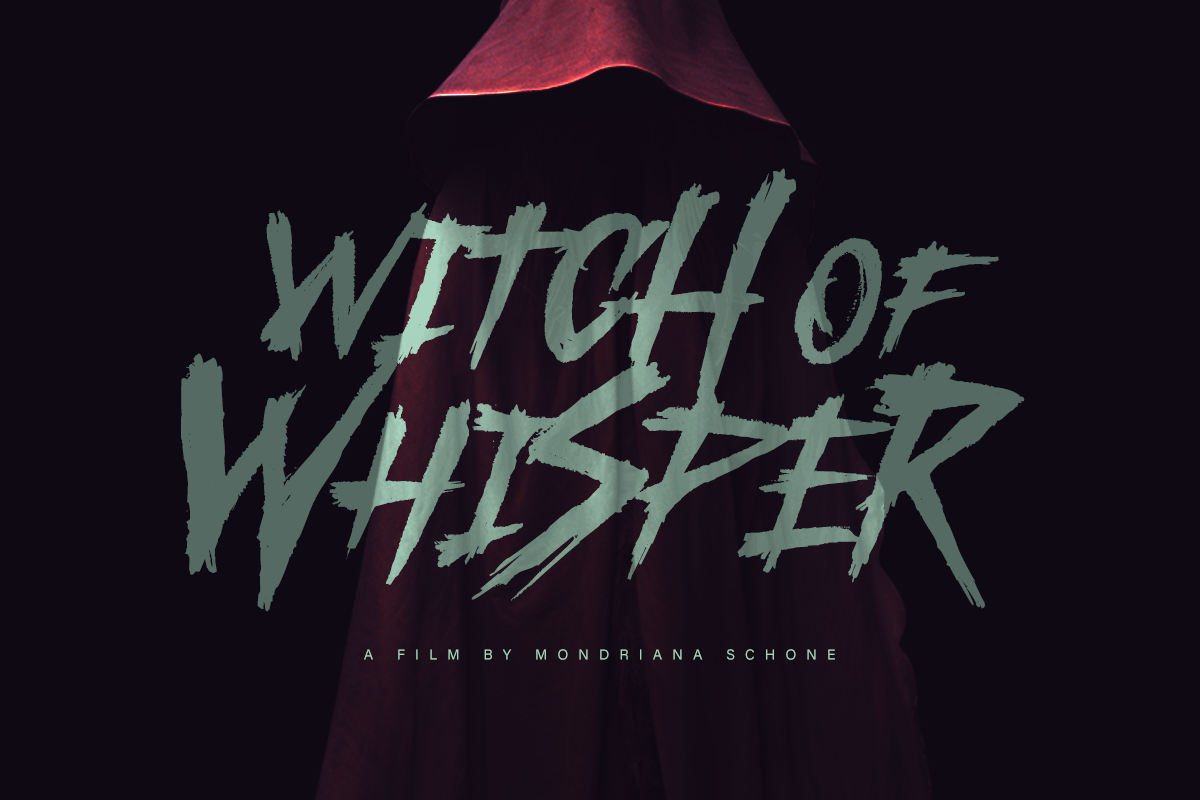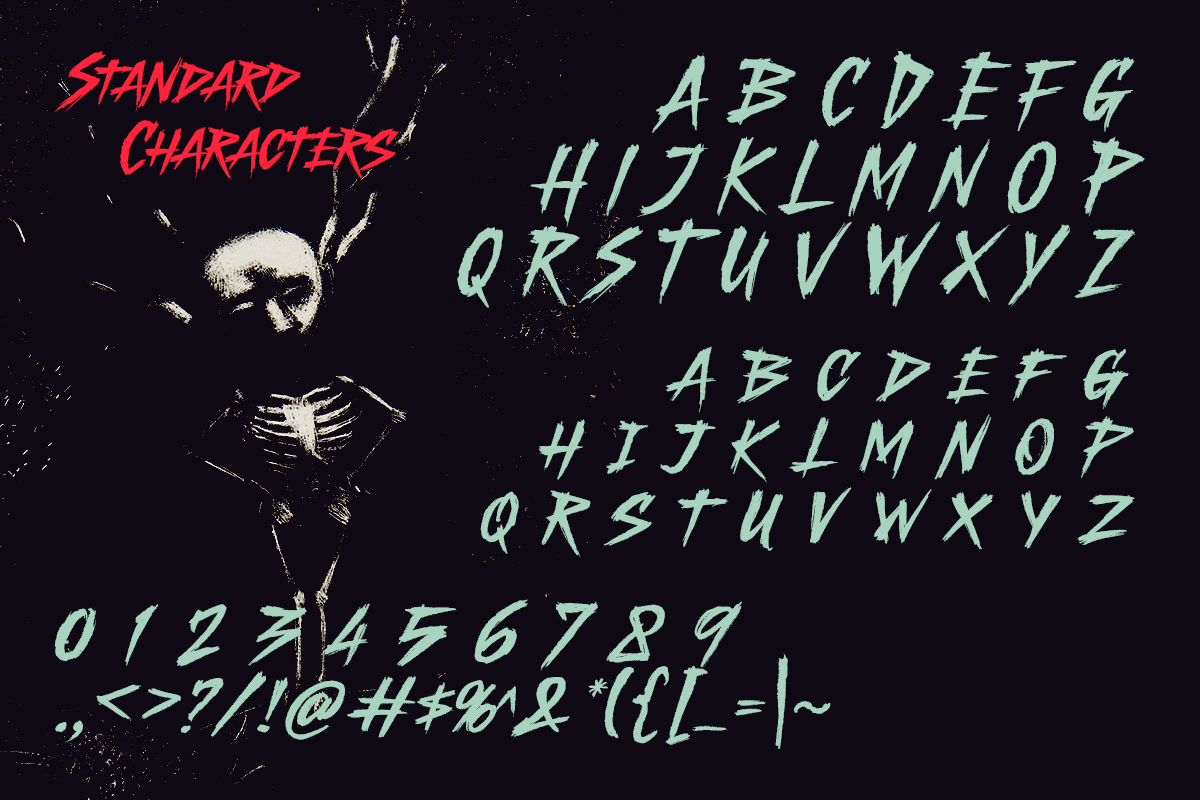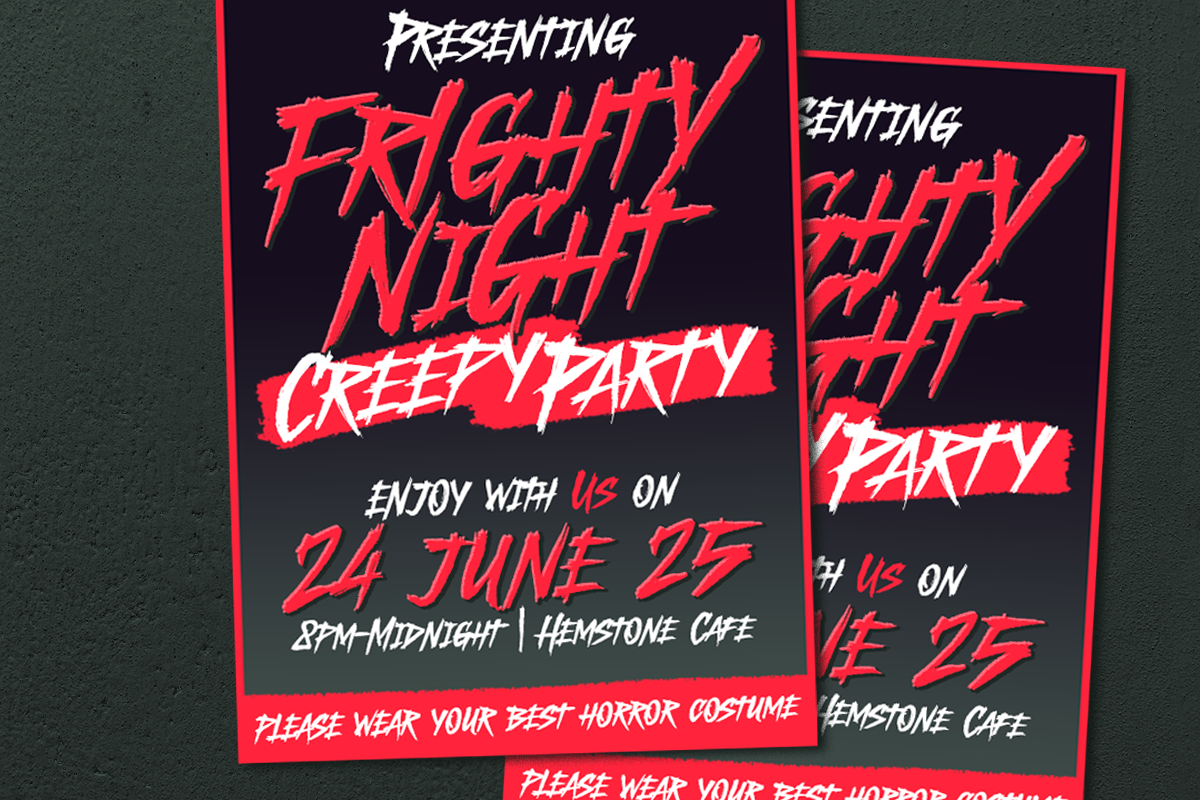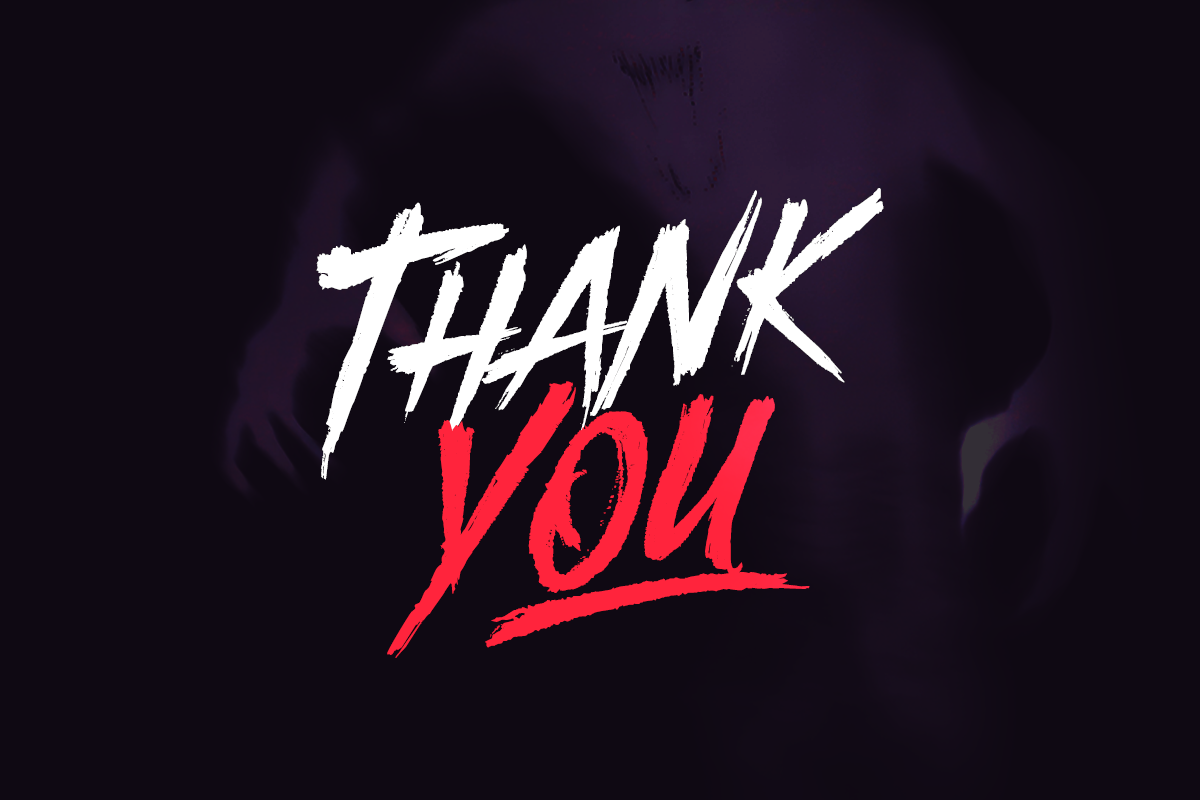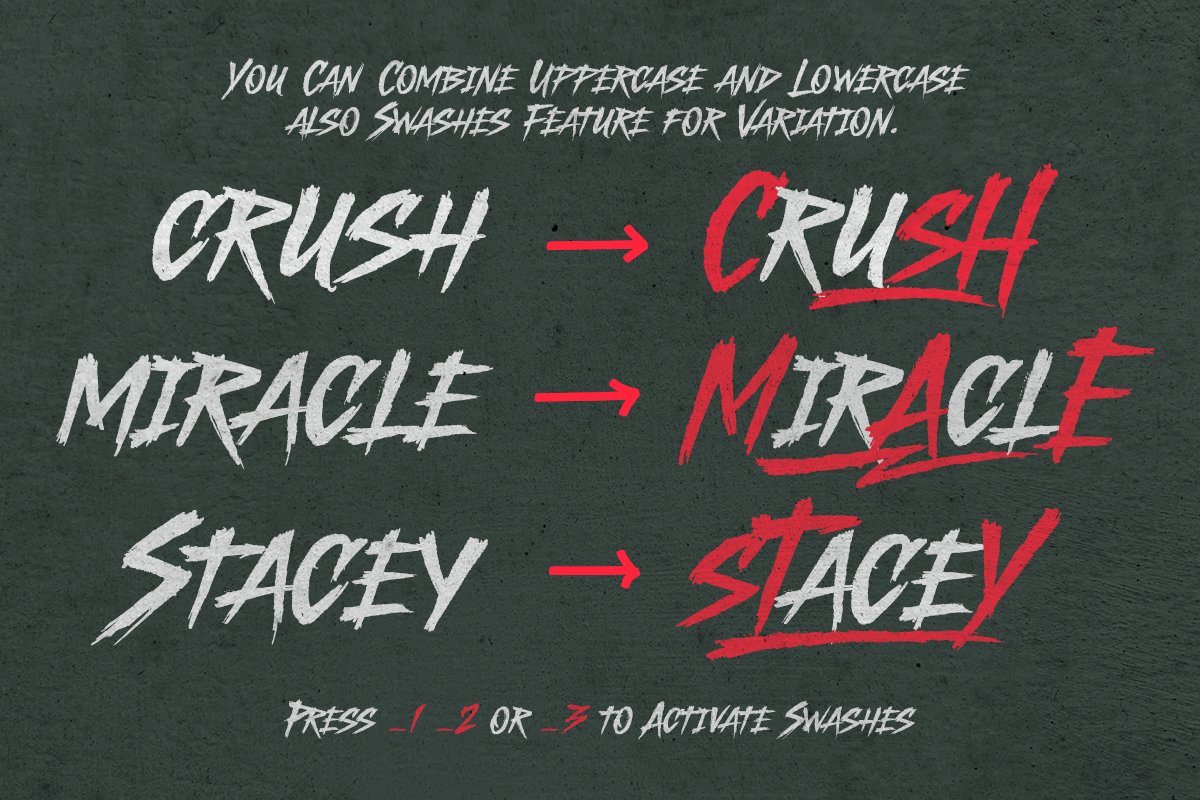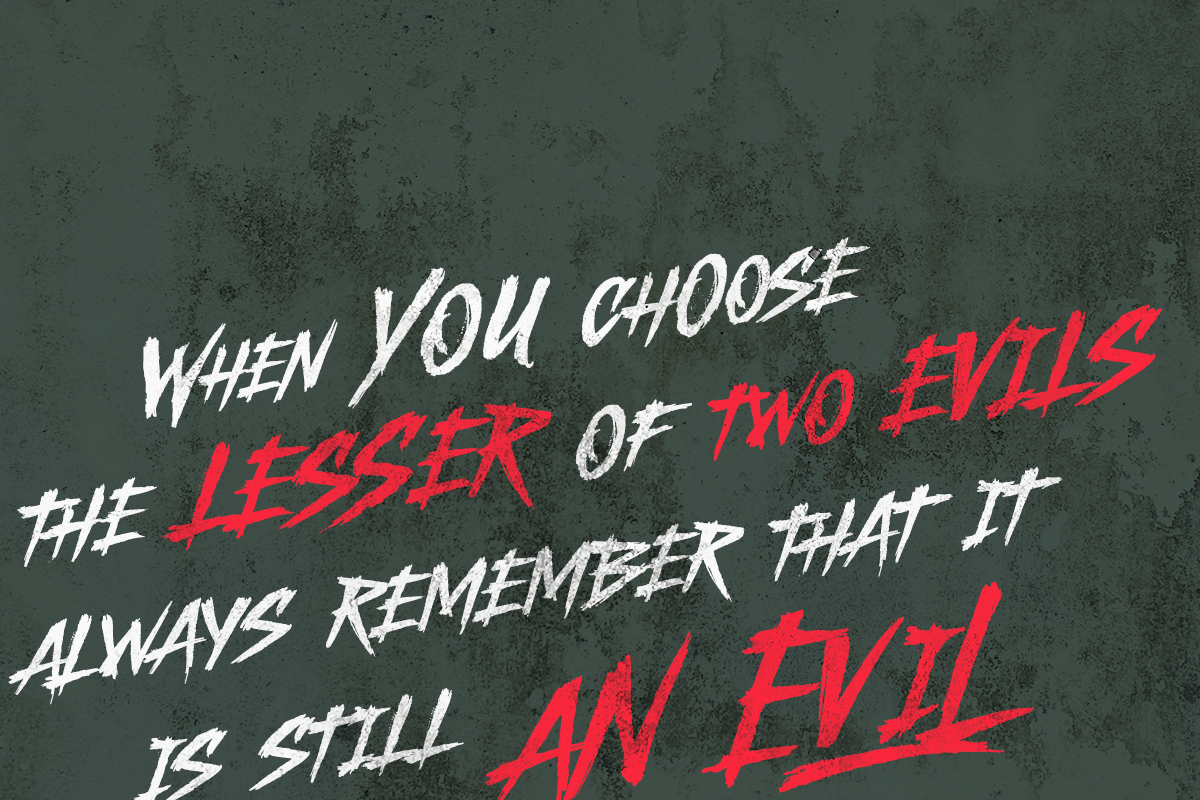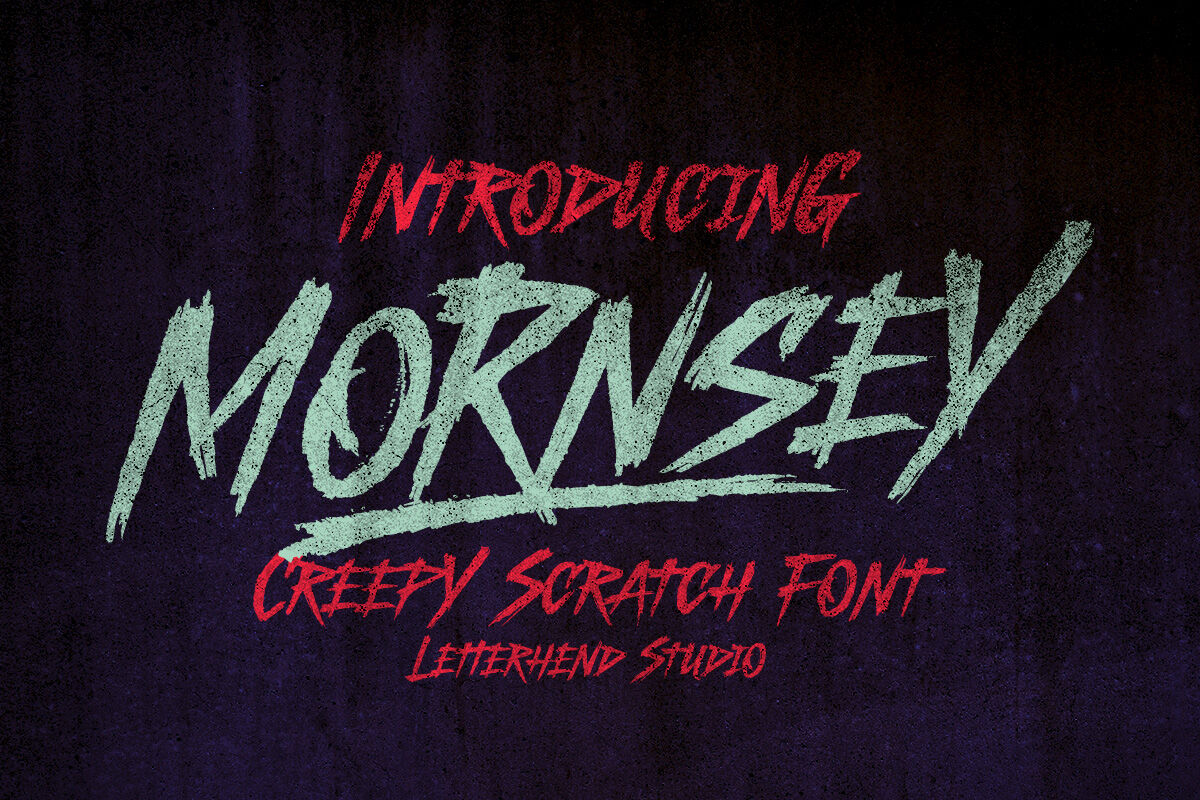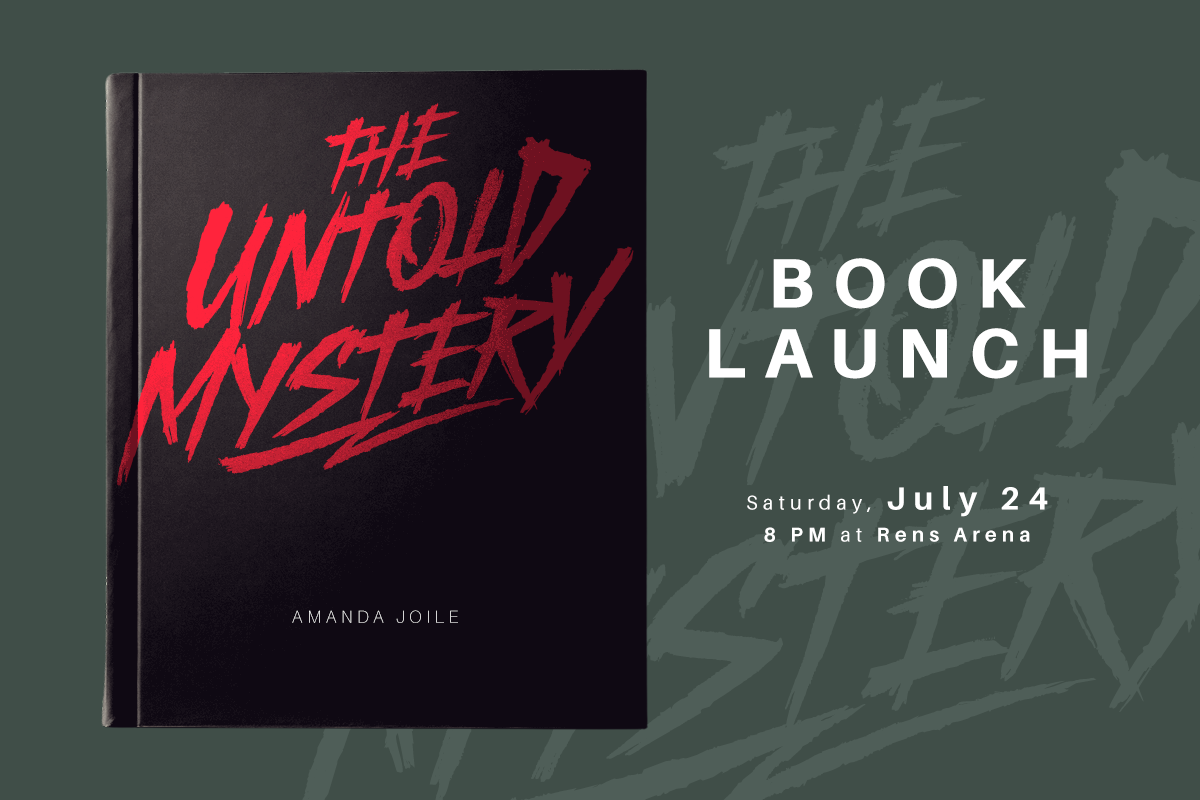
Mornsey is a bold and gritty creepy scratch font that instantly sets the tone for horror, thriller, and dark-themed designs. Its jagged strokes and hand-drawn scratch texture give off an unsettling, chaotic vibe—perfect for movie posters, haunted house branding, book covers, or any project that needs a raw and eerie edge. With its sharp, distressed lettering style, Mornsey doesn’t just deliver words, it delivers atmosphere—making your design scream with intensity and fear..
Features :
Uppercase & lowercase
Numbers and punctuation
Alternates/Ligatures
Multilingual Support